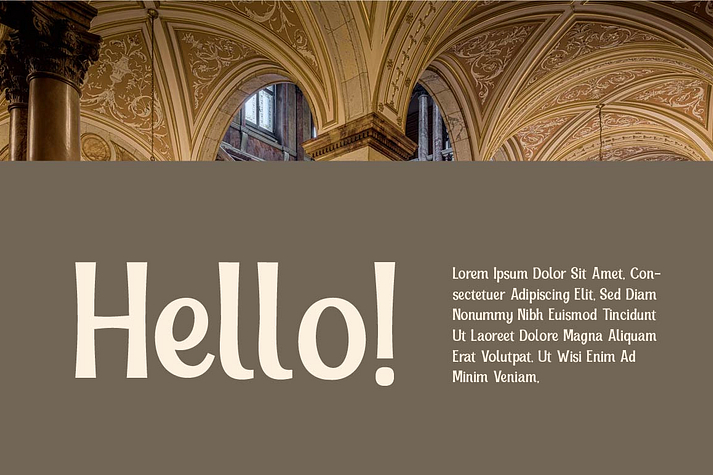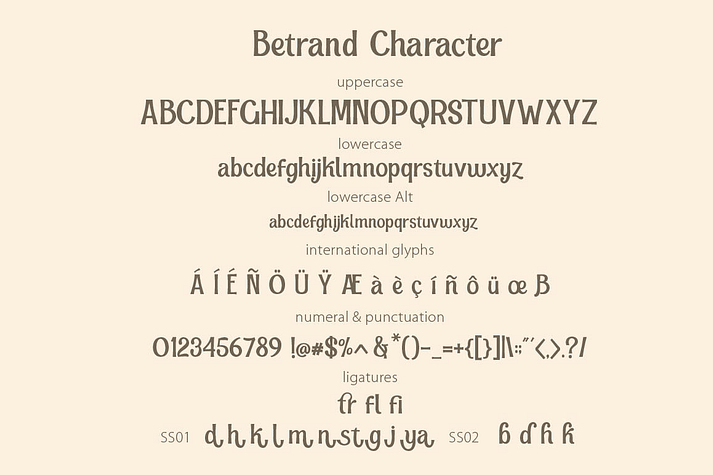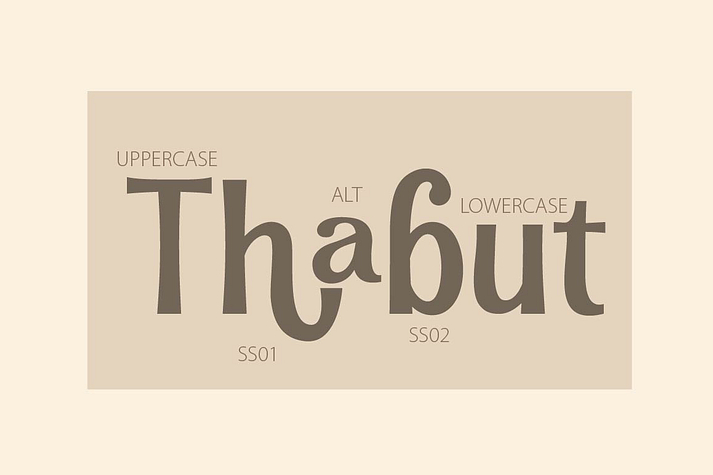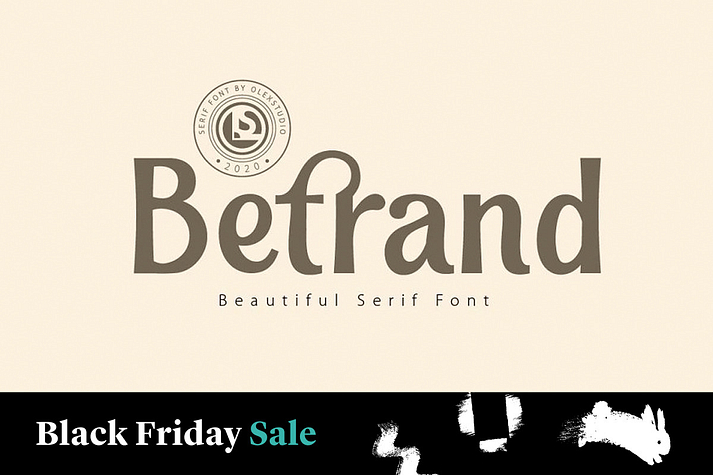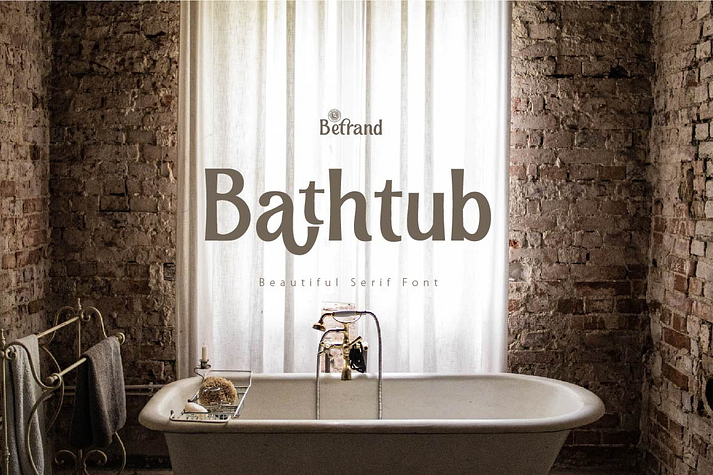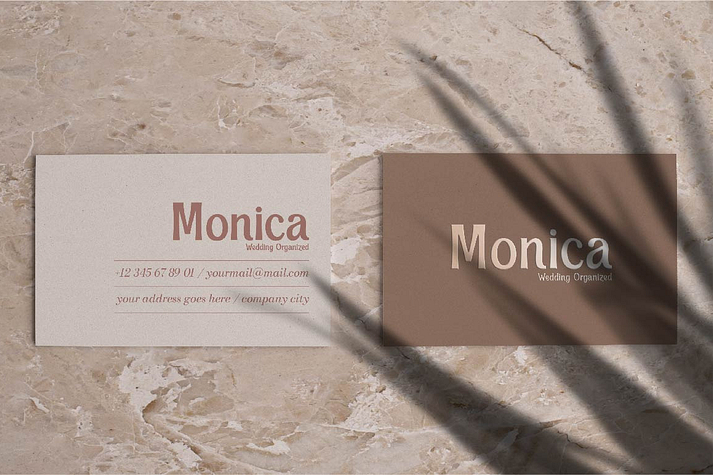
Betrand
Betrand is a sans serif font family published by olexstudio.
BETRAND - Serif Font will look gorgeous on all your designs, invitation, poster design, book design, branding materials, logo’s, t-shirt and all project design other.
BETRAND - Serif contains standard characters, Lowercase, alternates, Uppercase, numbers, punctuation, ligatures and international glyphs. You will receive OTF, TTF files & WEBFONT.